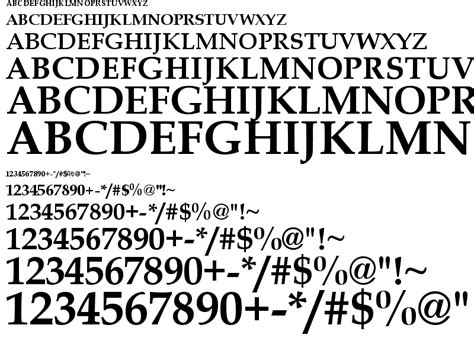
Linotype Modern Font Features : Linotype: Fonts for Desktop, Web & More - Demo donationware free free for personal use public domain, gpl, ofl shareware.. Antonio pace linotype gianotten w01 lt sc it took the italian designer antonio pace more than five years to create linotype gianotten, a successful new interpretation of the classic bodoni types. Скачать шрифт palatino linotype без регистрации, прамая ссылка на шрифт pala.ttf, версия 5.00, размер файла 461.59 кбайт. Modern script and modern calligraphy styles are a huge departure from traditional calligraphy and cursive handwriting. But we still have a lot to offer for you. The font family attached below is the platino linotype font (name from 'ms word') italicized.
Modern script and modern calligraphy styles are a huge departure from traditional calligraphy and cursive handwriting.
The font family includes 10 fonts, 5 sans serif weights and 5 weights with futuristic caps, thereby creating more variability. Fonts from the foundry linotype in use. New, modern and iconic fonts for your library. Font name newest most downloads. The hairlines, which are an outstanding feature of. In 1997, it was acquired by heidelberger druckmaschinen ag, and linotype library gmbh was spun off as a new company that was responsible solely for the acquisition, creation and distribution of digital fonts and related software. Which latex command can be used to automatically generates the font family in math mode throughout the document? Demo donationware free free for personal use public domain, gpl, ofl shareware. The didot family were active as designers for about 100 years in the 18th and 19th centuries. The modern renaissance antiqua garalda; Superior type technology since 1886, creator of helvetica®, frutiger®, optima®, univers® et al. Die neue vocal von lettersoup bietet 28 top ausgestattete fonts in lateinischem, griechischem und kyrillischem sprachausbau. Hello, you seem to have javascript turned off.
The digitally encoded machine readable. Fonts from the foundry linotype in use. If you're referring to the font foundries, monotype and linotype were once competitors, but linotype was acquired by monotype in 2006, although the brand name has. Learn about fonts and font selection. The contemporary, geometrical sans hollyday and other fonts.
Urbanfonts features an amazing collection of free fonts, premium fonts and free dingbats. Feature articles on fonts and design. The best selection of modern fonts for windows and macintosh. Adrian frutiger's didot is a sensitive interpretation of the french modern face didot. Antonio pace linotype gianotten w01 lt sc it took the italian designer antonio pace more than five years to create linotype gianotten, a successful new interpretation of the classic bodoni types. Modern leaves features letter styles with irregular heights that make it ideally suited for titles, headeres, and graphics. Try, buy and download professional fonts for desktop, web and apps. Hello, you seem to have javascript turned off.
Feature articles on fonts and design. Fonts from the foundry linotype in use. The didot family were active as designers for about 100 years in the 18th and 19th centuries. Here are 18 great modern fonts to choose from. Monotype modern is a lively typeface, with long, fine hairlines and well rounded letterforms, representing the best of nineteenth century modern monotype modern is an excellent text face for magazines, newspapers and books, the heavier and more condensed versions are useful in headlines.
New, modern and iconic fonts for your library. With over 8,000 freeware fonts, you've come to the best place to download fonts! Последние твиты от linotype (@linotype_com). Which latex command can be used to automatically generates the font family in math mode throughout the document? Linotype univers next (now univers next) is a completely reworked version of the original univers font family. Fonts from the foundry linotype in use. Unfortunately this font is removed due to copyright issues. Here are 18 great modern fonts to choose from.
Linotype dressage by linotype | category: Made evolve is a modern space font family featuring a combination of futuristic and geometric elements. Последние твиты от linotype (@linotype_com). If you're referring to the font foundries, monotype and linotype were once competitors, but linotype was acquired by monotype in 2006, although the brand name has. The best selection of modern fonts for windows and macintosh. The digitally encoded machine readable. The font family attached below is the platino linotype font (name from 'ms word') italicized. Palatino linotype is the definitive new version of hermann zapf?s palatino, which since its design in 1950 has become one of the world?s most widely used typefaces. Font name newest most downloads. Modern fonts are styles that are new to our present time, and differ from the remote past. Die neue vocal von lettersoup bietet 28 top ausgestattete fonts in lateinischem, griechischem und kyrillischem sprachausbau. Hello, you seem to have javascript turned off. Antonio pace linotype gianotten w01 lt sc it took the italian designer antonio pace more than five years to create linotype gianotten, a successful new interpretation of the classic bodoni types.